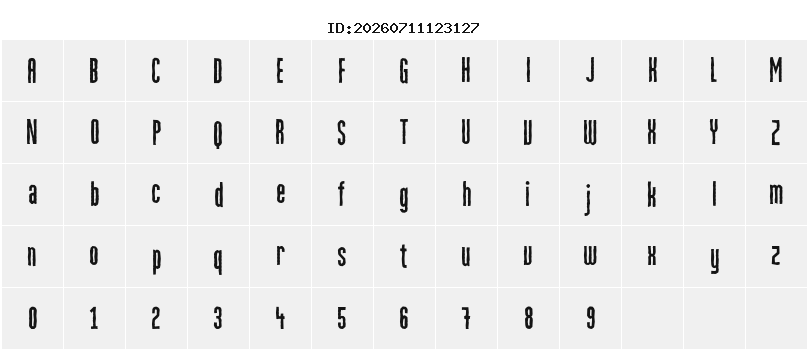
MartenCyr Preview
• Font Name: MartenCyr
• Full Font Name: MartenCyr-GrotesqueRough
• PostScript Name: MartenCyr-GrotesqueRough
About MartenCyr.ttf
MartenCyr.ttf is a modern, elegant sans-serif font designed for ultimate readability and visual harmony. Perfect for branding, headlines, web design, and print materials.